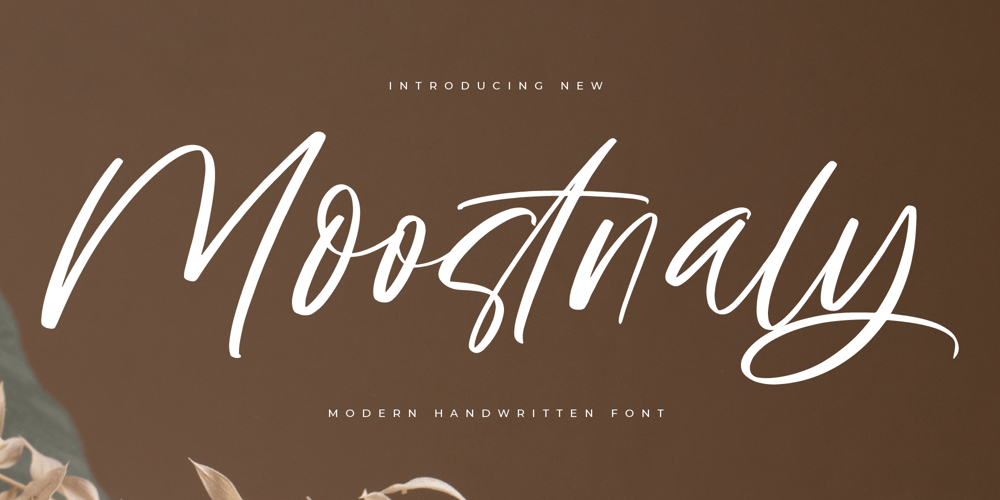
Moostnaly
Moostnaly font
Moostnaly Font Family was designed by Heru Utama Putra and published by Letterena Studios. Moostnaly contains 2 styles and family package options. Moostnaly is a dazzling script font that epitomizes elegance and charm. Its graceful flourishes and intricate details captivate the eye, making it perfect for wedding invitations, branding, and signage. With its timeless appeal and delicate curves, Moostnaly adds a touch of sophistication to any design project.